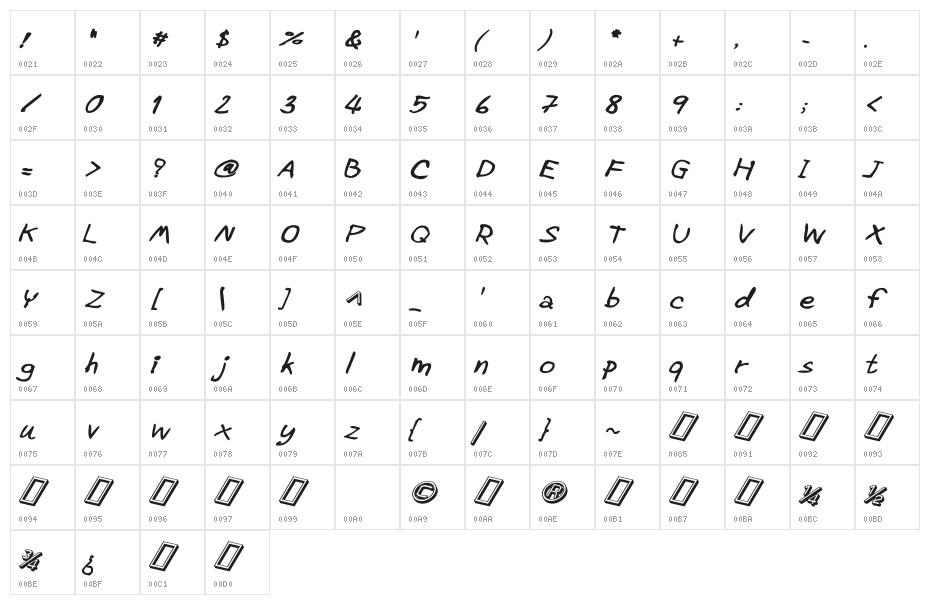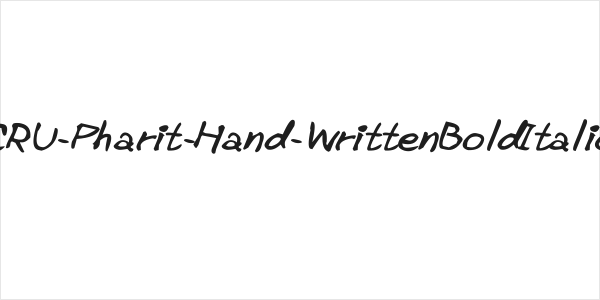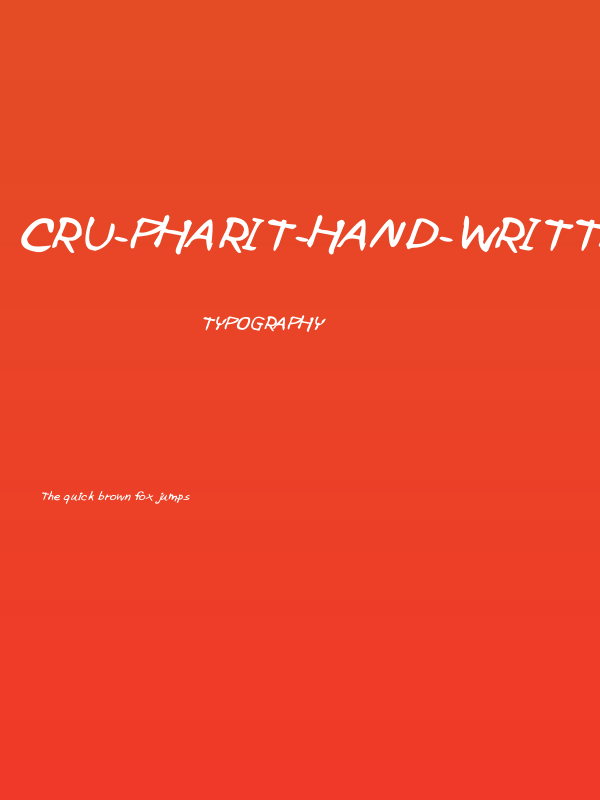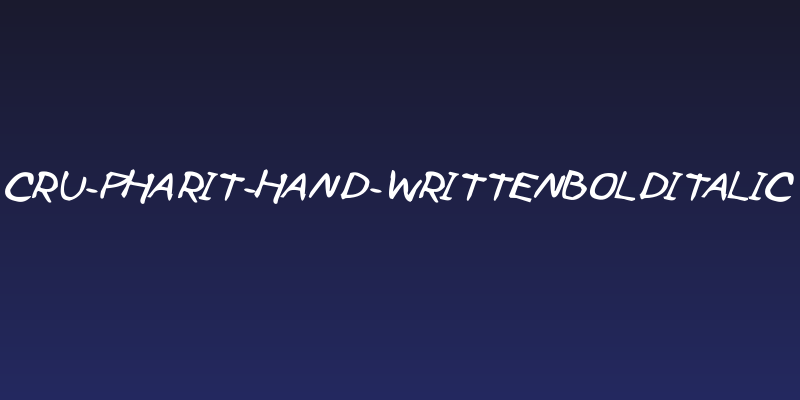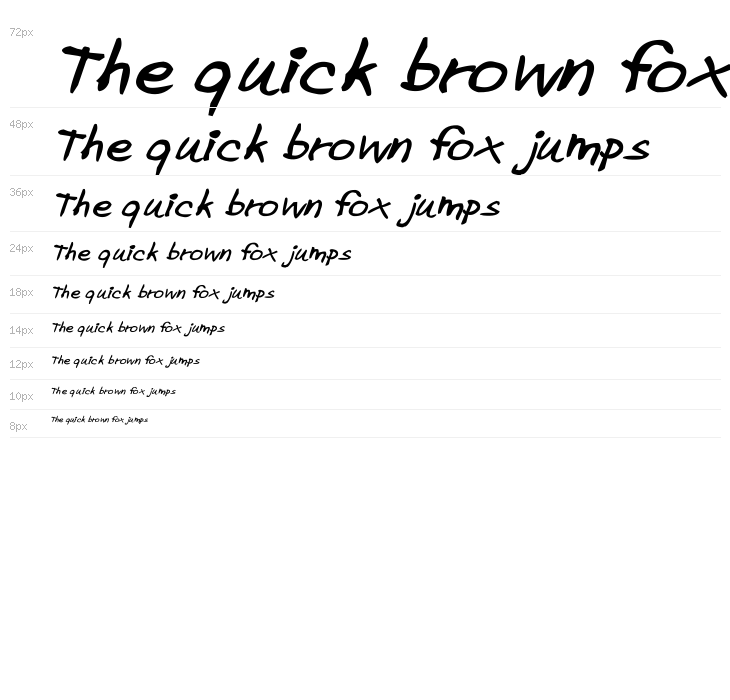
CRU-Pharit-Hand-WrittenBoldItalic Font
CRU-Pharit-Hand-WrittenBoldItalic Description
This font exudes a dynamic and energetic feel with its bold and italicized handwritten style. The letters are slightly slanted, giving a sense of movement and fluidity. The strokes are thick and consistent, providing a strong visual impact. The uppercase and lowercase letters maintain a cohesive style, with rounded edges and a playful character. Numbers and special characters are designed to match the overall aesthetic, ensuring uniformity across all elements. This font is ideal for projects that require a personal touch, such as invitations, greeting cards, or creative branding.
| Proposed Projects | Ideal for invitations, greeting cards, creative branding, and personal projects. |